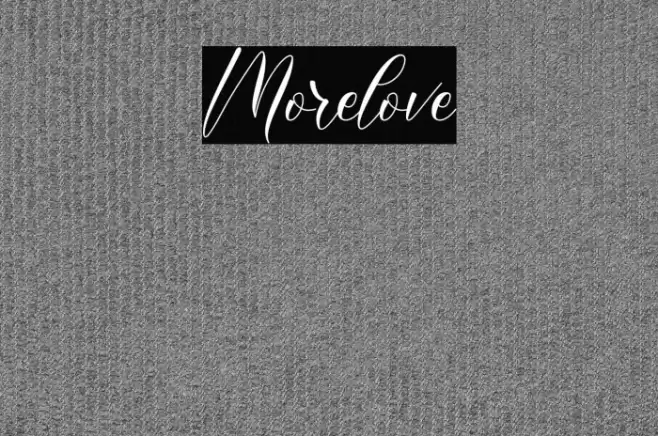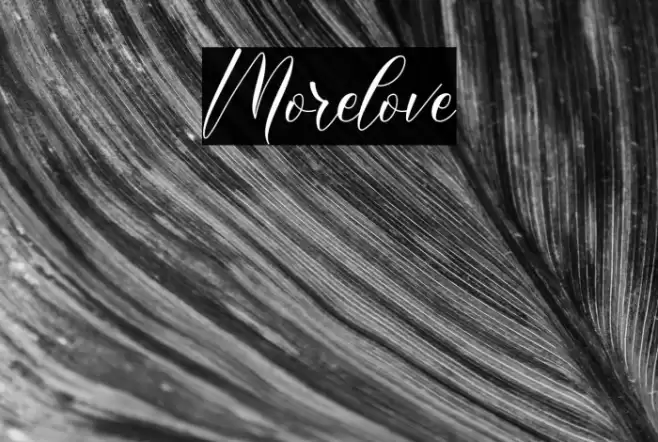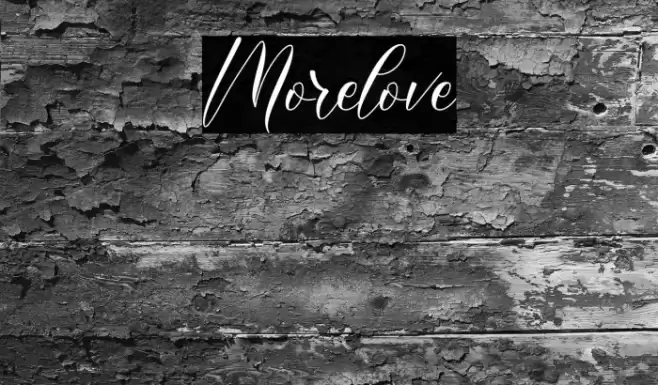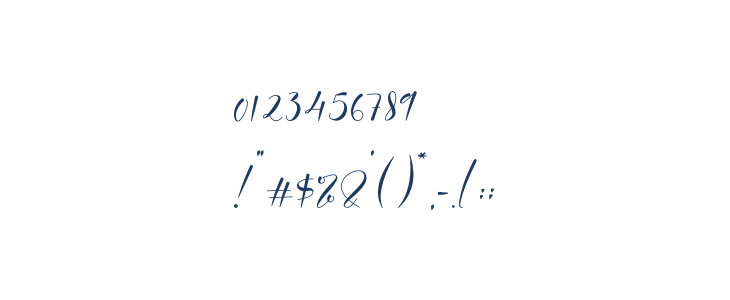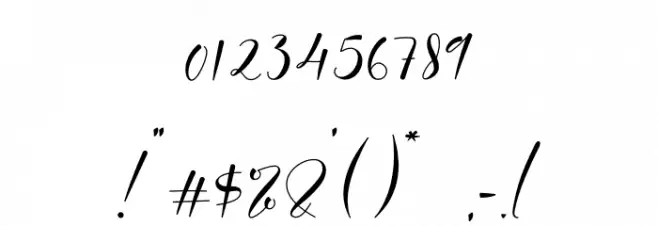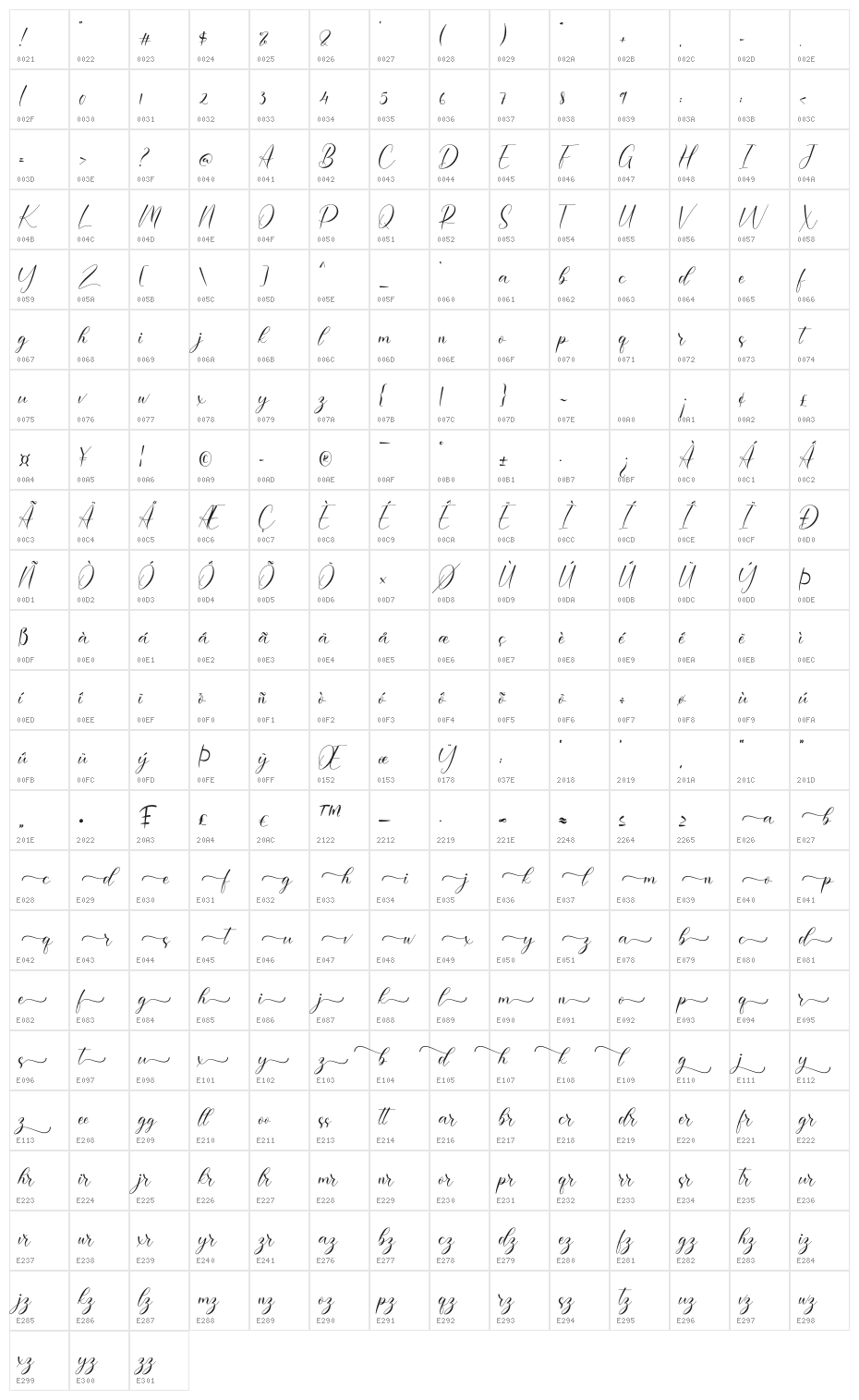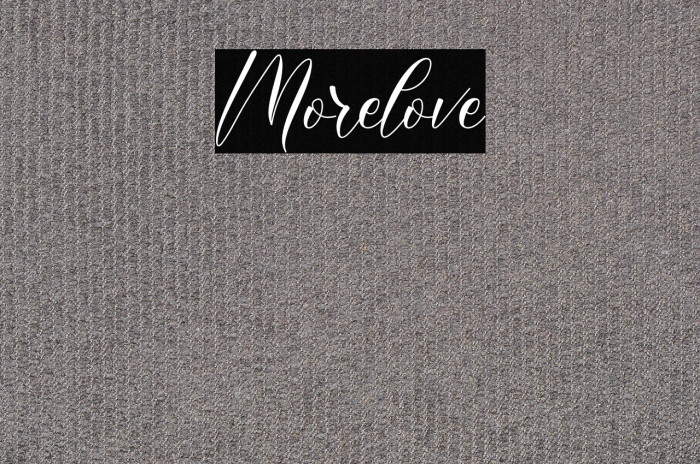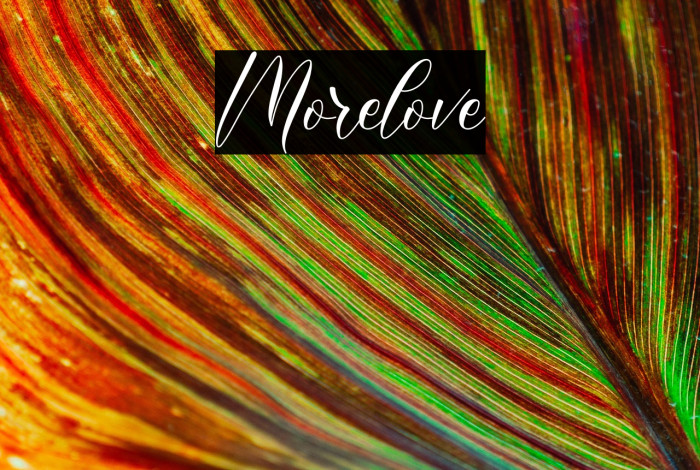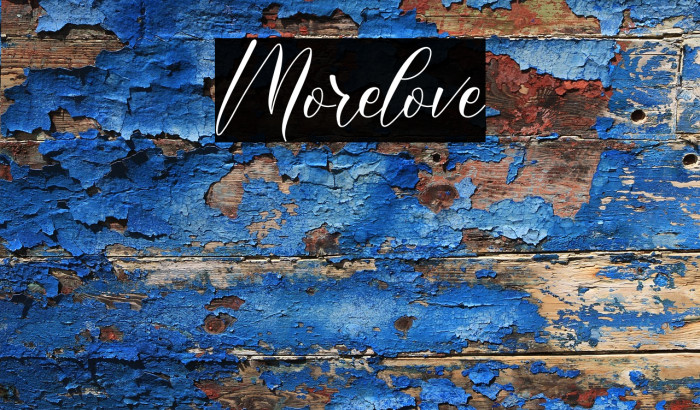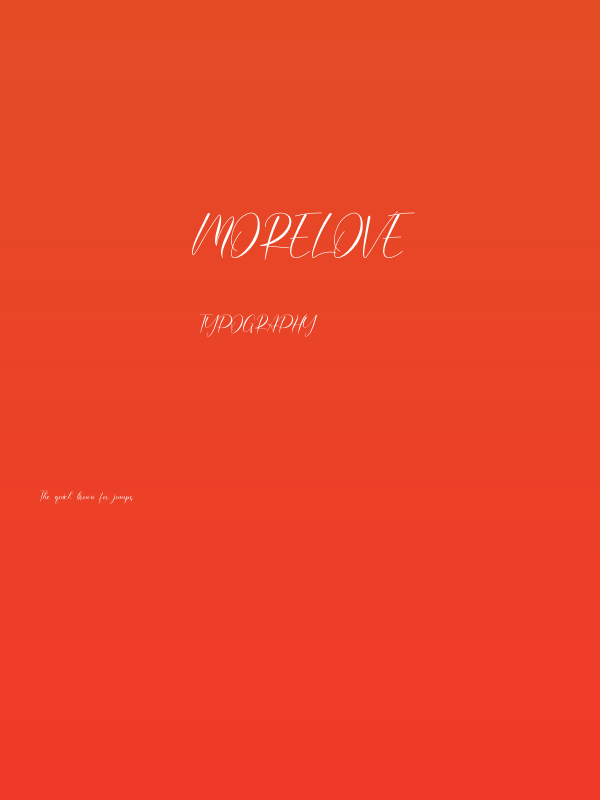
Morelove Font
Morelove Description
This elegant script font features a flowing, cursive style with graceful, elongated strokes and a sophisticated appearance. The uppercase letters are tall and slender, with sweeping curves that give a sense of motion and fluidity. The lowercase letters maintain a consistent style, with some letters featuring loops and flourishes that add to the overall decorative feel. The numerals are designed to match the script style, with a slight slant and delicate curves. Special characters are included, maintaining the same elegant and flowing aesthetic. This font is perfect for projects that require a touch of elegance and sophistication.
An elegant script font with flowing, cursive strokes and a sophisticated style from Uncategorized fonts.
- Proposed Projects: Ideal for wedding invitations, elegant branding, greeting cards, and high-end product packaging.
- Overall Style: Elegant, Decorative
- Use Case: Logos, Invitations, Decorative text